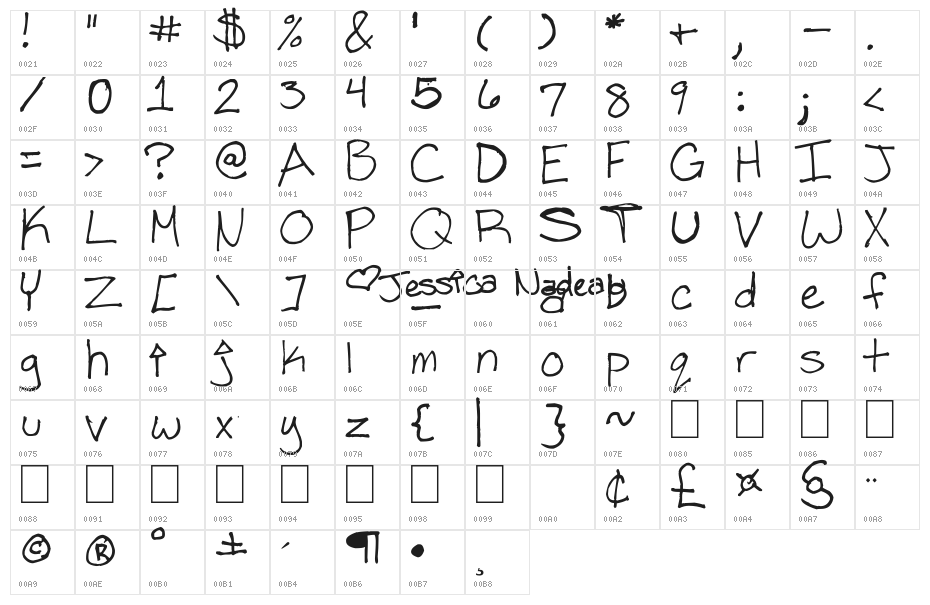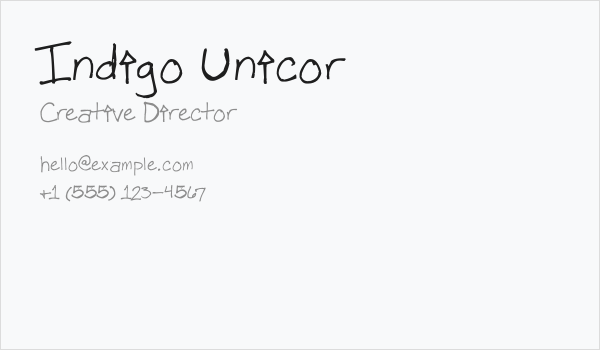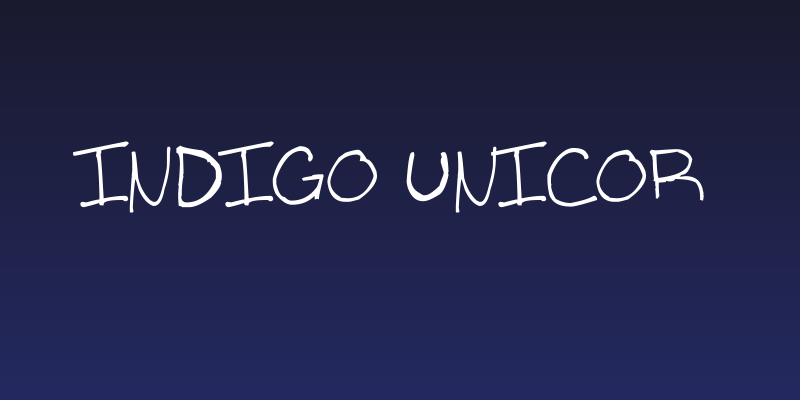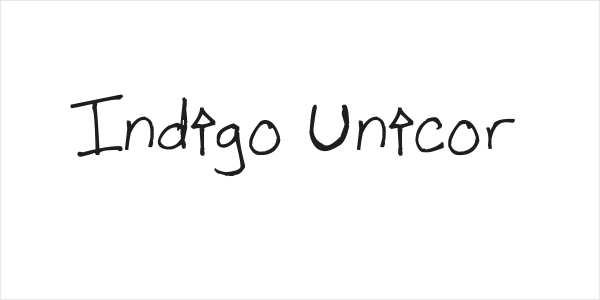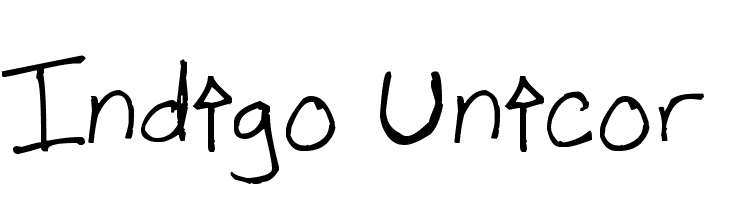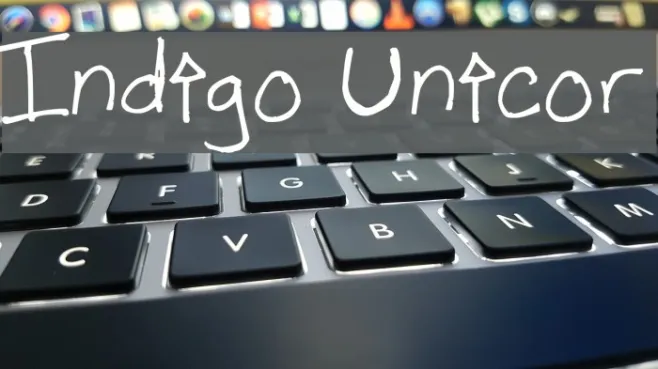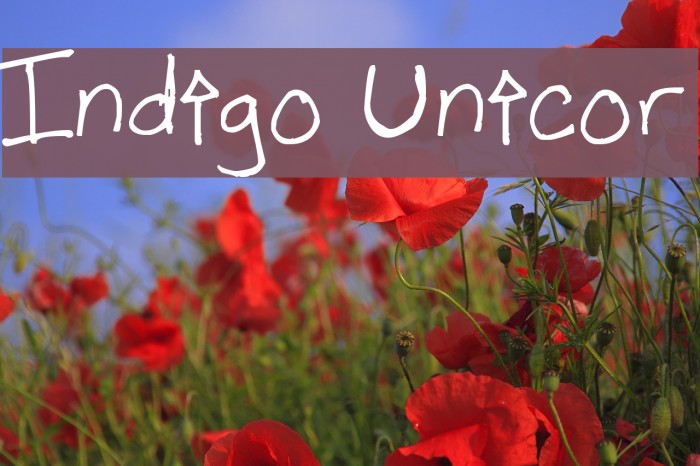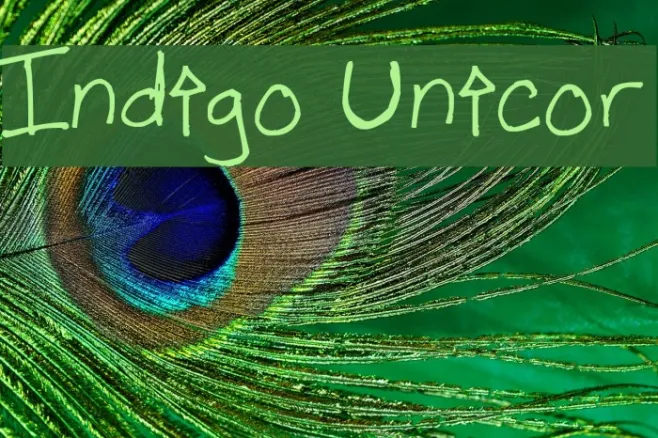
Indigo Unicor Font
Indigo Unicor Description
This font features a playful, handwritten style with a casual and informal appearance. The letters are unevenly sized and spaced, giving it a dynamic and energetic feel. The strokes are bold and slightly irregular, adding to its whimsical charm. The uppercase and lowercase letters maintain a consistent style, while the numerals and special characters complement the overall aesthetic. This font is ideal for projects that require a personal touch or a creative flair.
| Use Case | Headlines, Creative projects, Informal communications |
| Proposed Projects | Great for greeting cards, children's books, casual posters, and creative branding. |